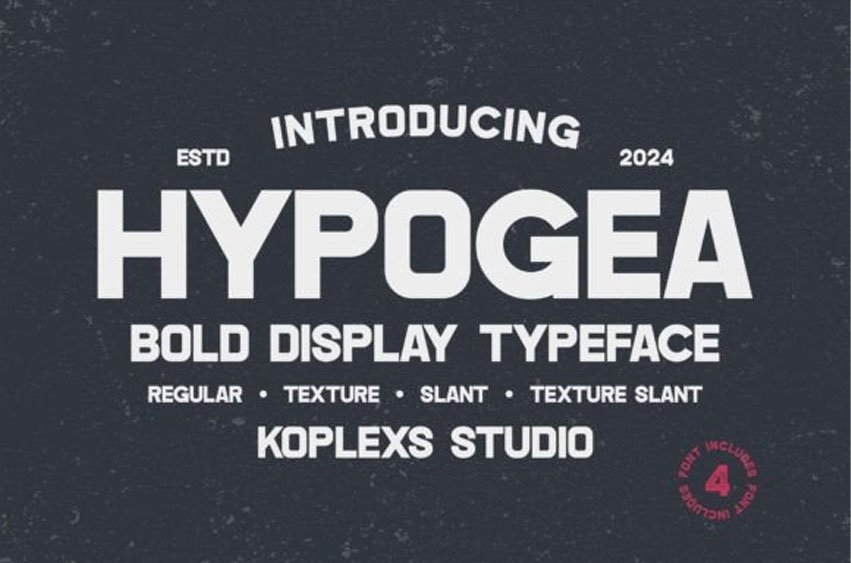
Hypogea Font is a bold and striking display typeface designed to make your creative projects stand out! Whether you’re working on eye-catching logos, impactful posters, or unique branding designs, Hypogea Font is your perfect solution.
With four versatile styles—Regular, Texture, Slant, and Texture Slant—this font provides unmatched flexibility for a wide range of creative applications. From modern branding to vintage-inspired designs, Hypogea fits seamlessly into any concept while adding a strong personality to your work.